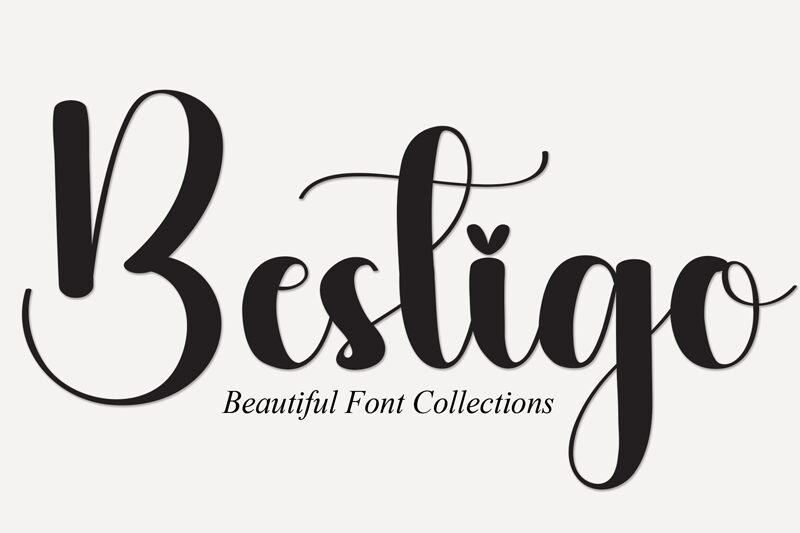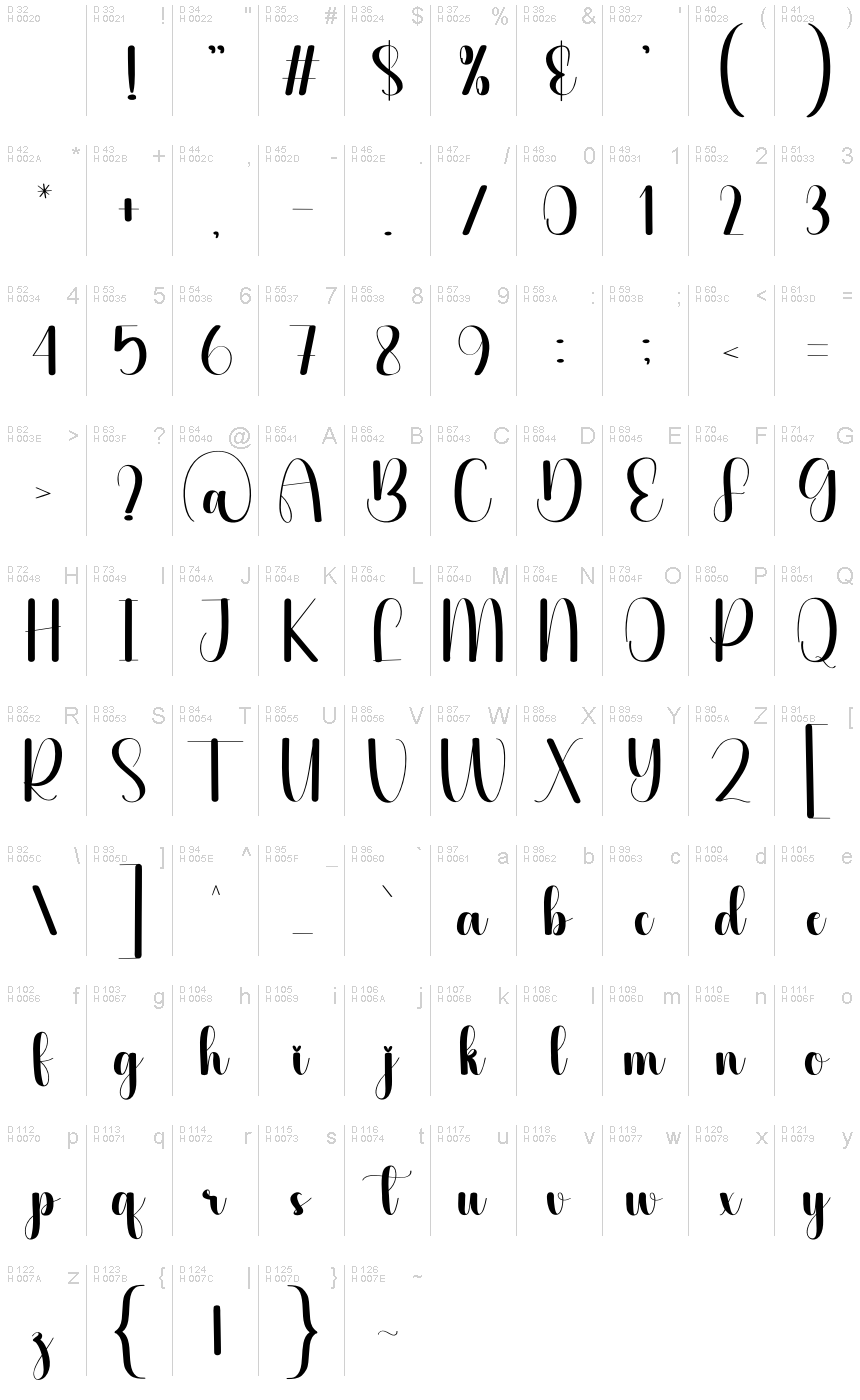
Bestigo
Bestigo font, crafted by Scratchones, merges elegance with fluidity in a stunning calligraphic style. Its graceful script and artistic loops exude sophistication, making it perfect for projects that require a touch of class and flair. The font’s vivid personality captures attention effortlessly, ideal for branding, invitations, or any creative endeavor aiming to stand out.
Perfect for weddings, logos, or editorial layouts—Bestigo elevates every word with style.